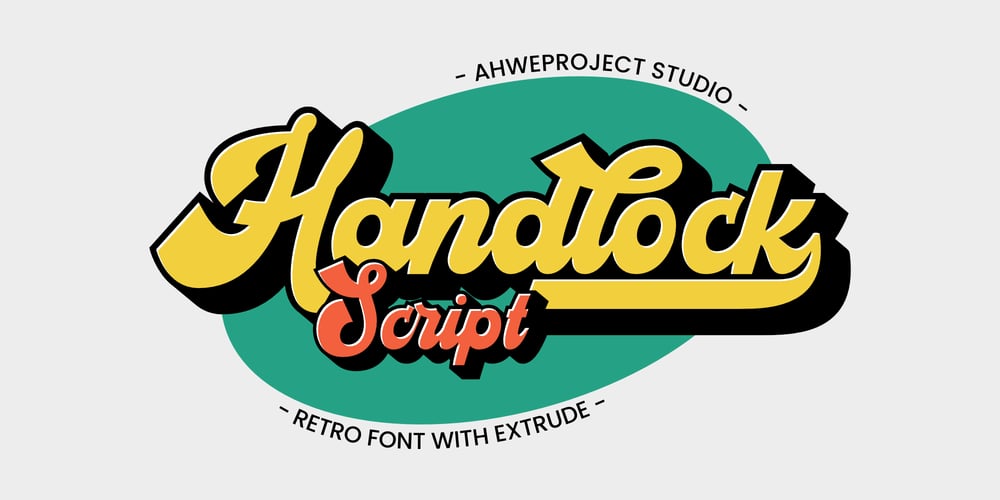
Handlock
Handlock font
Handlock Font Family was designed by Dida Ahluddin and published by ahweproject. Handlock contains 2 styles and family package options. Handlock is a bold and retro styled handwritten font. This font reads as strong, confident, and dynamic and can add tons of nostalgic character to your designs.Add it to your vintage-inspired posters, stickers, apparel, or social media posts and you will definitely impress your audience.This font is PUA encoded, which means you can access all of the glyphs and swashes with ease!